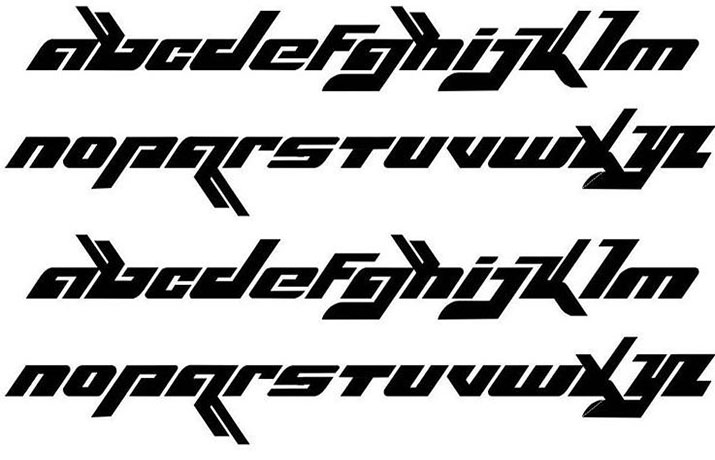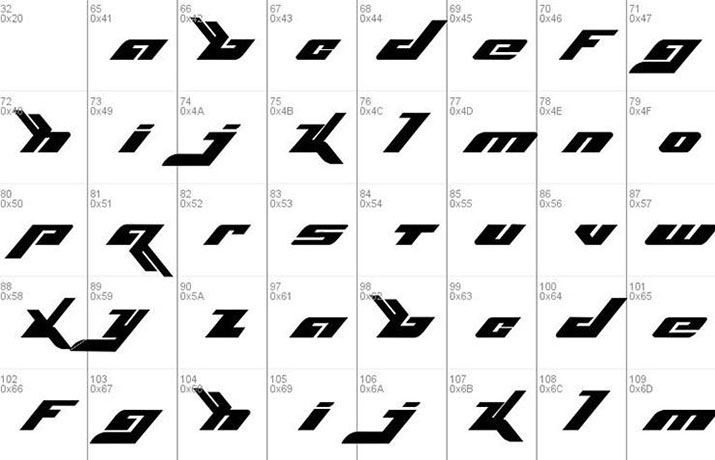
Bjork Font is a techno display typeface with a bold and striking look. It’s innovative, forward-looking, elegant, and most of all attention-getting.
Fontographer generated it. This beautiful font is attractive and brings maximum accuracy as well as bold aesthetics. All lines are properly set with bold strokes.
It is ideal for cutting-edge techno projects, digital media, or sci-fi-themed designs. You can also use it for techno music videos, posters, headers, titles, gaming, banners, or digital multimedia projects.
“[Bjork typeface is available in a single style that is regular with TrueType file format and features 58 designed characters in upper and lower case. Moreover, it also supports 34 multilingual languages]”.
| Style: | Techno, Display, Fancy |
- It works well for designing murals, postcards, infographics, and catalogs. This eye-catching typeface can be used to create themes and layouts for a variety of videos on Facebook, YouTube, and other social media platforms.
- In addition to many other wonderful things, give it a try for branding, business names, logo designs, book covers, movie headers, display titles, product designs, brand logos, movie posters, gaming, banners, titles, posters, and game titles.
This font supports 34 languages.